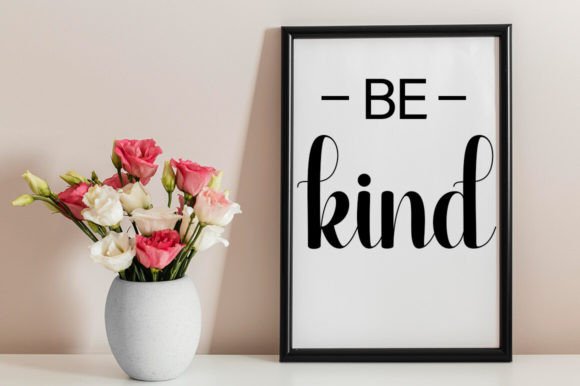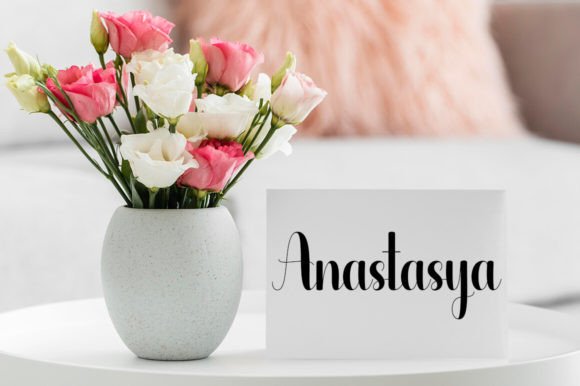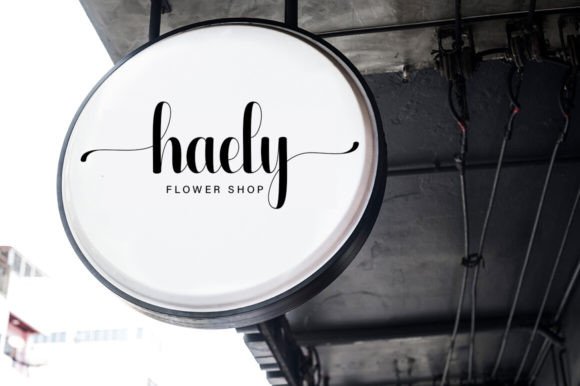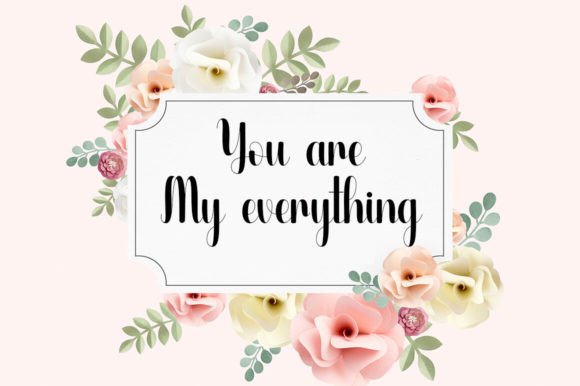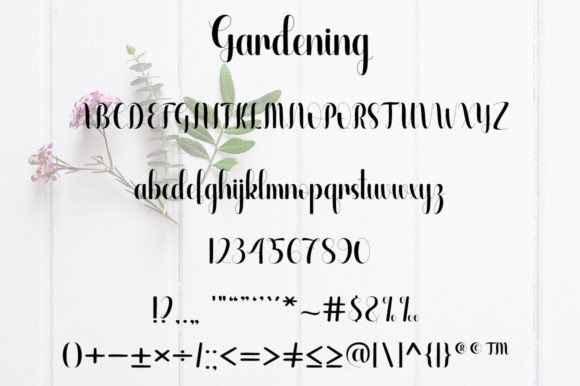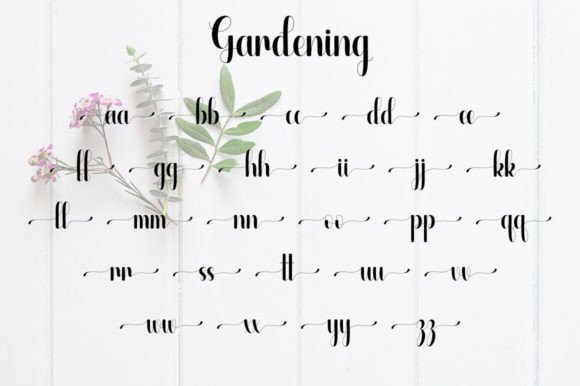
Gardening Font: Elevate Your Design Projects with Elegance and Charm
Gardening feels equally charming and elegant, and the right font can make all the difference in capturing this essence. Introducing the Gardening Font, a stunning script font that pays homage to classic calligraphy. This beautiful font is designed to elevate any design project to the highest level, making it perfect for a wide range of applications, from branding and titles to wedding designs, invitations, signs, logos, labels, and more.
A Stylish Homage to Classic Calligraphy
The Gardening Font is a masterful blend of traditional calligraphy and modern design. Its elegant strokes and flourishes evoke the sophistication of classic calligraphy, while its clean and crisp lines ensure that it remains highly legible. Whether you’re looking to add a touch of whimsy to your design or create a more formal, luxurious feel, this font is sure to impress.
As a designer or crafter, you know how important it is to have the right tools at your disposal. The Gardening Font is a versatile and stylish addition to any design arsenal, allowing you to create stunning visual content that stands out from the crowd. Whether you’re working on a branding project, creating wedding invitations, or designing labels and signs, this font is sure to elevate your work to the next level.
Key Features of the Gardening Font
- Elegant script design: The Gardening Font features a beautiful, flowing script design that’s perfect for creating sophisticated and luxurious visual content.
- Classic calligraphy inspiration: This font draws inspiration from traditional calligraphy, giving it a timeless and elegant feel.
- Highly legible: Despite its elegant design, the Gardening Font remains highly legible, making it perfect for use in a wide range of applications.
- Versatile: This font can be used for everything from branding and titles to wedding designs, invitations, signs, logos, labels, and more.
The Gardening Font is a stunning script font that’s perfect for designers and crafters looking to add a touch of elegance and charm to their design projects. With its elegant design, classic calligraphy inspiration, and high legibility, this font is sure to elevate any design to the highest level. Whether you’re working on a branding project, creating wedding invitations, or designing labels and signs, the Gardening Font is a versatile and stylish addition to any design arsenal.